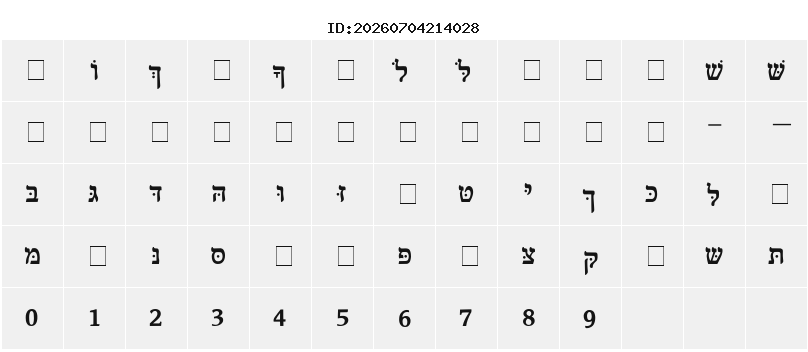
Dor Regular Preview
• Font Name: Dor Regular
• Full Font Name: Dor Regular
About Dor Regular.ttf
Dor Regular.ttf is a modern, elegant sans-serif font designed for ultimate readability and visual harmony. Perfect for branding, headlines, web design, and print materials.